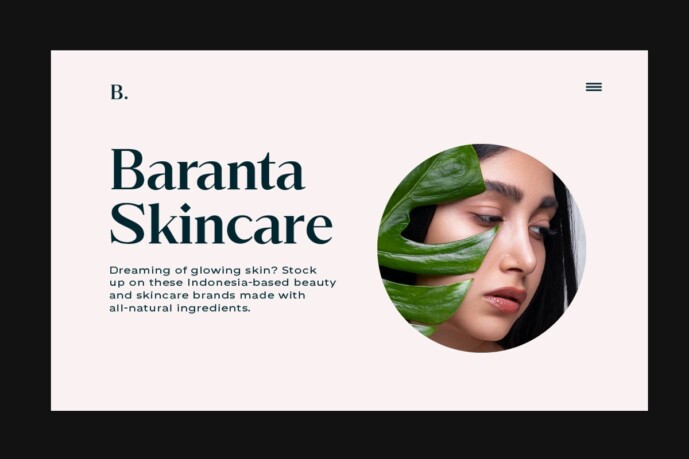
Banera Font
Designer: Yukita Creative
Banera Font, the elegant display font designed to take your designs from ordinary to extraordinary. Perfect for Digital, Print, and more.